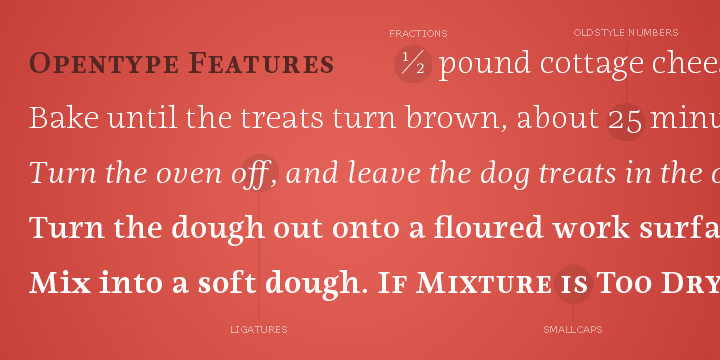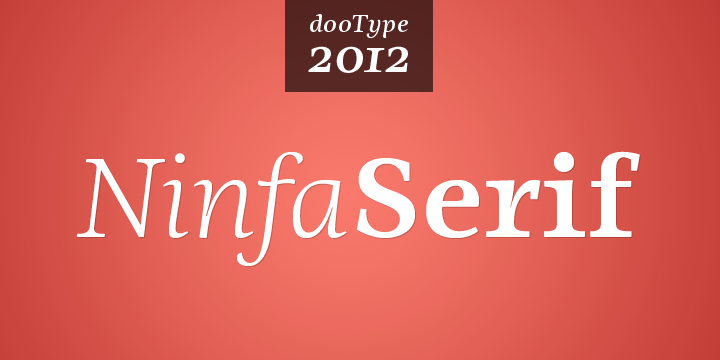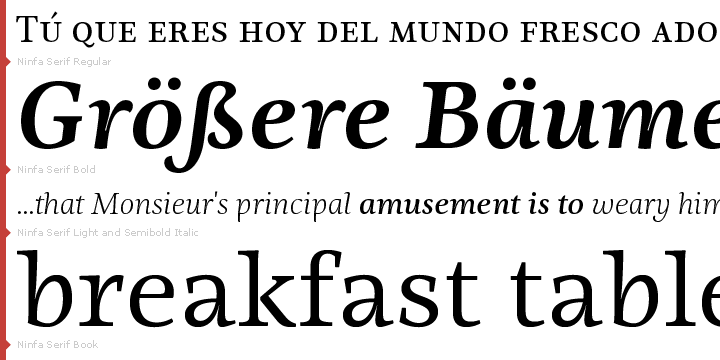
Ninfa Serif is a serif font family. This typeface has ten styles and was published by dooType.
Using the genetic inheritance of semi-serif typography “Ninfa”, designed in 2008, “Ninfa Serif” has 10 styles and designed to fulfill all needs in the design of text - books and magazines.